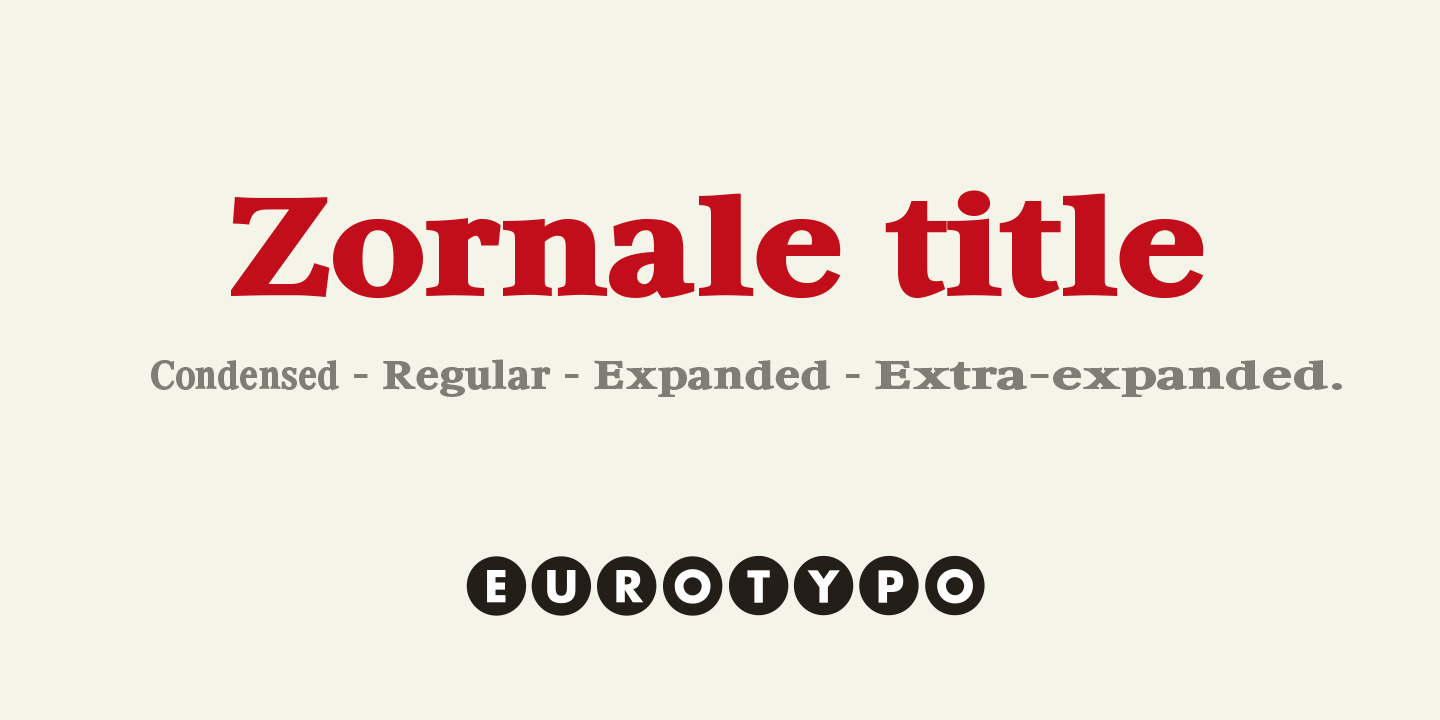
Zornale Title Font is perfect for newspaper publishing companies, magazine title designs, editorial publication branding, journalism awards presentations, media company communications, news website headers, press conference materials, and authoritative content platform marketing. This commanding typeface excels in applications where journalistic authority, editorial credibility, and news industry professionalism are essential for connecting with audiences who seek reliable information and appreciate the institutional trust of established media organizations.
What makes Zornale Title Font so exciting is its powerful embodiment of editorial authority and journalistic integrity that perfectly captures the essence of newspaper headlines and the commanding presence of trusted news media. The font features bold, impactful letterforms with editorial characteristics that evoke front-page headlines and authoritative news reporting. Its professional character conveys credibility, authority, and journalistic excellence - essential qualities for brands serving media organizations, news platforms, and information-focused audiences who value accurate reporting, editorial integrity, and the institutional authority of established journalism and news media excellence.
The Zornale Title Font family includes multiple authoritative weights and editorial variations that enhance its news media appeal. Some versions feature condensed proportions optimized for headline impact and newspaper column layouts, while others provide expanded variants that maintain the font's editorial character with enhanced readability for professional publishing applications and commercial media communications.
Whether you're creating branding for media companies, designing materials for news organizations, or developing marketing campaigns for editorial services, Zornale Title Font Free Download provides the journalistic authority your project requires. The font's editorial character makes it particularly effective for brands targeting information-seeking audiences who appreciate news credibility, editorial professionalism, and the trusted authority of established journalism and media excellence.
Report with authority using Zornale Title Font and headline your brand communications with typography that embodies the commanding presence of editorial excellence and journalistic integrity.